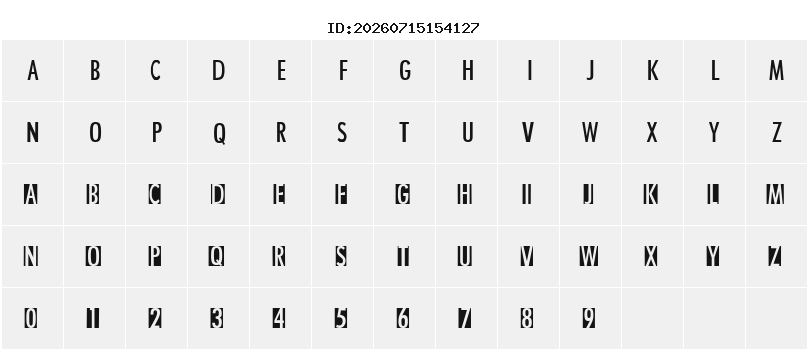
accused Preview
• Font Name: accused
• Font ID: SpideRaY: ACCUSED: 2010
• Full Font Name: accused
• Version: Version 2.008
• PostScript Name: accused
• Character Count: 94
• Designer: SpideRaY
• Manufacturer: SpideRaY
About accused.ttf
accused.ttf is a modern, elegant sans-serif font designed for ultimate readability and visual harmony. Perfect for branding, headlines, web design, and print materials.